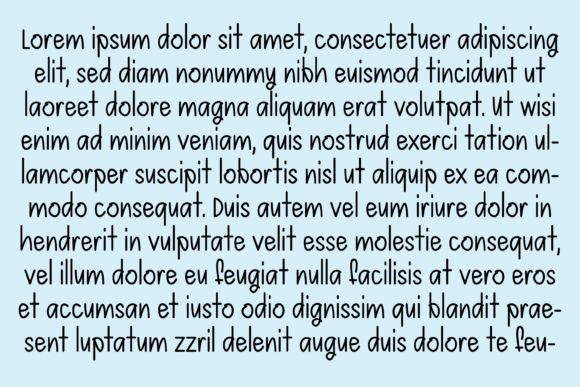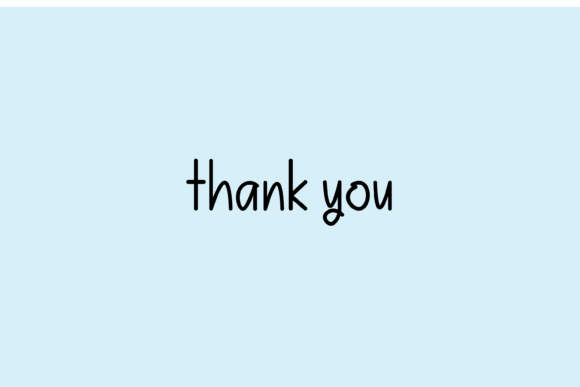
Introducing Gabby Font: The Perfect Handwritten Font for Your Creative Projects
Are you looking for a font that can add a touch of personality and whimsy to your designs? Look no further than Gabby Font! This simple and friendly handwritten font is perfect for designers and crafters who want to create unique and eye-catching projects. In this article, we’ll take a closer look at Gabby Font, its features, and how you can use it to elevate your designs.
What is Gabby Font?
Gabby Font is a beautiful handwritten font that is both simple and elegant. It’s a typeface that exudes a sense of friendliness and approachability, making it perfect for a wide range of design projects. Whether you’re creating a logo, wedding invitation, or advertisement, Gabby Font is sure to add a touch of personality and whimsy to your design.
One of the standout features of Gabby Font is its quirky and whimsical nature. It’s a font that doesn’t take itself too seriously and is not afraid to have a little fun. This makes it perfect for designers who want to create projects that are a little bit different and stand out from the crowd.
Key Features of Gabby Font
So, what makes Gabby Font so special? Here are just a few of its key features:
- Simple and Friendly: Gabby Font is a simple and friendly handwritten font that’s perfect for creating designs that are approachable and easy to read.
- Whimsical and Quirky: This font has a playful and quirky nature that’s sure to add a touch of personality to your designs.
- Versatile: Gabby Font is perfect for a wide range of design projects, from logos and wedding invitations to advertisements and print materials.
- Elegant: Despite its playful nature, Gabby Font is also an elegant and sophisticated typeface that’s perfect for creating designs that are both fun and refined.
How to Use Gabby Font in Your Designs
So, how can you use Gabby Font in your designs? Here are just a few ideas to get you started:
- Logos: Gabby Font is perfect for creating unique and eye-catching logos that stand out from the crowd.
- Wedding Invitations: This font is a great choice for wedding invitations, as it adds a touch of elegance and sophistication to your design.
- Quotes: Gabby Font is perfect for creating inspirational quotes and posters that are both fun and motivational.
- Advertisements: This font is a great choice for advertisements, as it adds a touch of personality and whimsy to your design.
- Print Materials: Gabby Font is perfect for creating a wide range of print materials, from brochures and flyers to magazines and newspapers.
Tips for Getting the Most Out of Gabby Font
Here are just a few tips for getting the most out of Gabby Font:
- Experiment with Different Sizes: Gabby Font looks great in a wide range of sizes, so don’t be afraid to experiment and find the perfect size for your design.
- Pair it with Other Fonts: This font pairs well with a wide range of other fonts, so don’t be afraid to get creative and try out different combinations.
- Use it in Combination with Images: Gabby Font looks great in combination with images, so consider using it to add text to your photos and illustrations.
- Don’t be Afraid to Get Creative: Gabby Font is a versatile typeface that’s perfect for a wide range of design projects, so don’t be afraid to get creative and try out new and interesting things.
In conclusion, Gabby Font is a beautiful and versatile handwritten font that’s perfect for designers and crafters who want to add a touch of personality and whimsy to their designs. With its simple and friendly nature, quirky and playful vibe, and elegant and sophisticated style, Gabby Font is sure to become a favorite in your design arsenal. So why not give it a try and see the amazing things you can create?
Whether you’re a professional designer or a crafty DIY enthusiast, Gabby Font is a great choice for any design project. Its versatility and flexibility make it perfect for a wide range of applications, from logos and wedding invitations to advertisements and print materials. So go ahead, get creative, and see what amazing things you can create with Gabby Font!